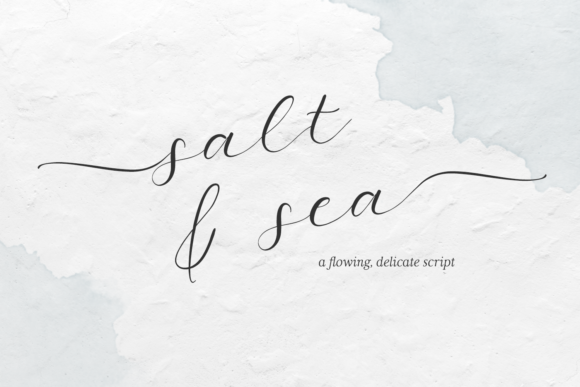
Embark on a Typographic Voyage with Salt and Sea: The Quintessence of Elegance and Grace
In a world where words dance and letters take flight, Salt and Sea Script emerges as a masterpiece, a symphony of curves and flourishes that will leave you spellbound. BeckMcCormick, the visionary behind this creation, has captured the essence of the sea's whisper and the salt's kiss, weaving them into a font that exudes both luxury and grace.
With its wispy, feminine strokes, Salt and Sea Script invites you to immerse yourself in a world of romance and sophistication. Its delicate lines evoke the ethereal beauty of sea foam, while its subtle yet confident presence commands attention. This font is not merely a tool for communication; it's an expression of art, a reflection of your unique style.
Whether you're crafting elegant wedding invitations, designing logos that whisper luxury, or creating enchanting brand identities, Salt and Sea Script will effortlessly elevate your creations. Its versatility extends beyond the digital realm, allowing you to leave a lasting impression on physical products, packaging, and even watermarks.
Imagine your words adorned with the charm of Salt and Sea Script, like seashells whispering secrets to the shore. Your designs will radiate a timeless allure, capturing hearts and captivating imaginations. Embrace the essence of the sea and salt, and let your creativity flourish with this font that's as captivating as the ocean itself.